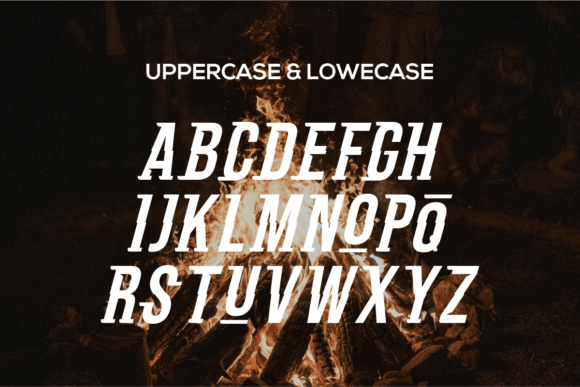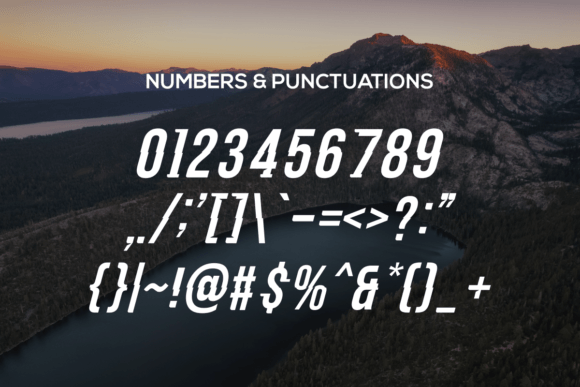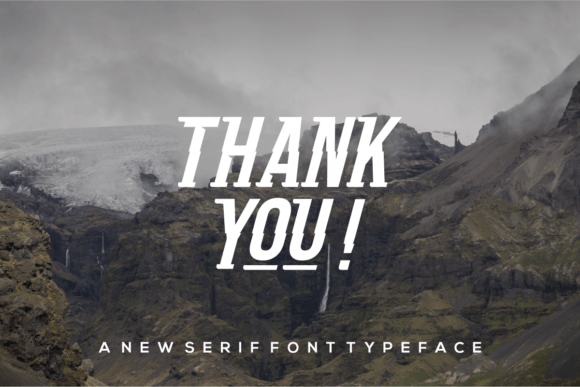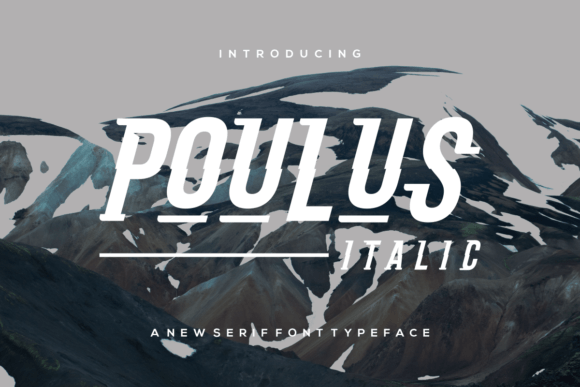
Poulus Italic: A Sweet and Elegant Slab Serif Typeface
Poulus Italic is a sweet and elegant slab serif typeface. Moreover, it beautifully combines a classy calligraphic influence with a contemporary and fresh feel. When you use this font, you’ll quickly fall in love with how it takes your projects to the highest level.
Key Features of Poulus Italic
- Sweet Design: Offers a charming and appealing look.
- Elegant Style: Brings sophistication to designs.
- Calligraphic Influence: Features graceful, flowing letterforms.
- Contemporary Feel: Maintains a fresh, modern appearance.
Best Uses for Poulus Italic
Thanks to its unique characteristics, Poulus Italic works especially well for:
- Elegant branding projects
- Stylish invitations
- Modern packaging design
- Fresh website headers
- Sophisticated social media content
- Creative marketing materials
- Fashion and lifestyle branding
When using Poulus Italic in your designs, keep these tips in mind:
- Try it for headlines or short text to show off its sweet and elegant style.
- Mix with upright fonts to create interesting contrasts[2].
- Use its calligraphic influence to add a touch of class.
- Let its fresh feel bring designs up to date.
To sum up, Poulus Italic is an excellent choice for designers seeking a sweet and elegant slab serif typeface with calligraphic flair. Its ability to blend classic influences with contemporary style makes it stand out. Whether you’re working on branding materials, creating invitations, or developing modern content, Poulus Italic offers the perfect mix of elegance and freshness.
Furthermore, Poulus Italic’s unique design allows it to shine in various contexts where sophistication meets modern style. For instance, from social media content to marketing materials, this font can lift your projects with its distinctive look. Also, its sweet yet refined appearance works particularly well in designs that aim to make an elegant impact while staying current.
In conclusion, Poulus Italic truly captures the essence of modern elegance in slab serif typography. Its versatility across different applications shows how well it can serve various creative needs. Therefore, for those wanting to add a touch of sophisticated charm to their work, Poulus Italic can enhance any design with its unique style. Ultimately, it’s perfect for designers aiming to make an elegant, contemporary impact across creative projects.